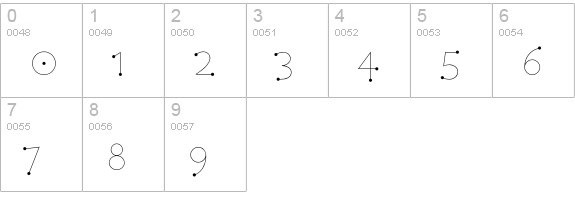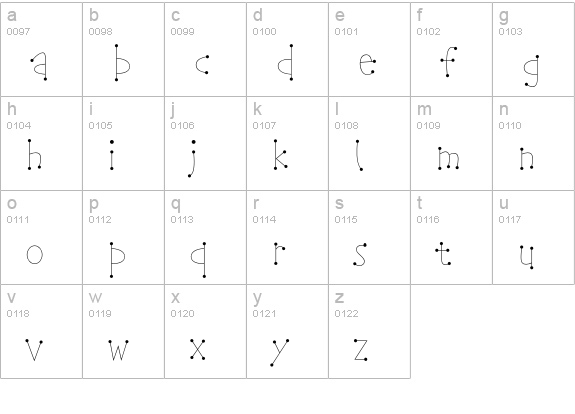
Telegram Std Font Details
Telegram Std font is a visually striking typeface that combines elegance with modernity. With its sleek and refined design, it is sure to make a lasting impression on any project. This versatile font is perfect for a wide range of applications, from branding and advertising to web design and print media. What sets Telegram Std font apart is not only its stunning aesthetics but also its accessibility. It is freely available to download at FontsMarket.com, making it an excellent choice for designers and enthusiasts alike. Whether you're a professional looking to elevate your designs or a hobbyist searching for the perfect font, Telegram Std font is the ideal solution. With its extensive character set and multiple weights, Telegram Std font offers endless possibilities for creative expression. Its clean lines and legible letterforms ensure optimal readability, even at smaller sizes. This makes it an excellent choice for body text, headlines, and everything in between. The versatility of Telegram Std font is further enhanced by its compatibility with various design software and platforms. It seamlessly integrates with popular applications such as Adobe Creative Cloud, ensuring a smooth and hassle-free design process. Whether you're working on a digital project or a print campaign, this font will deliver exceptional results every time. In addition to its aesthetic appeal and ease of use, Telegram Std font also boasts excellent language support. It includes a wide range of characters, symbols, and punctuation marks, making it suitable for multilingual projects. No matter the language or script, Telegram Std font will ensure your message is communicated effectively and beautifully. With its combination of elegance, modernity, and accessibility, Telegram Std font is a must-have for any designer or typographer. Its freely available download at FontsMarket.com makes it a valuable resource for anyone seeking high-quality fonts without breaking the bank. Upgrade your designs and unleash your creativity with the captivating Telegram Std font.